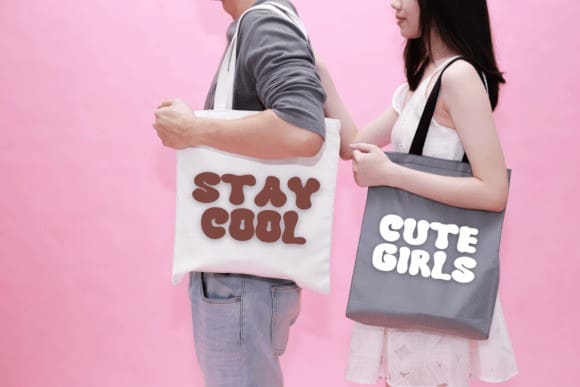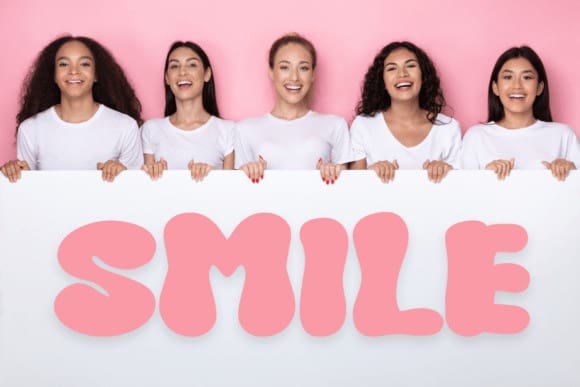
Retro Meow Font
Retro Meow Font is a versatile, stylish, and fun retro display font that’s perfect for a wide spectrum of applications such as greeting cards, news headlines, and more.
Add this to any of your creative projects, and it will give off a romantic vibe that’s as beautiful as it is cute. Get inspired by her unique and beautiful style and add it to your favorite designs!